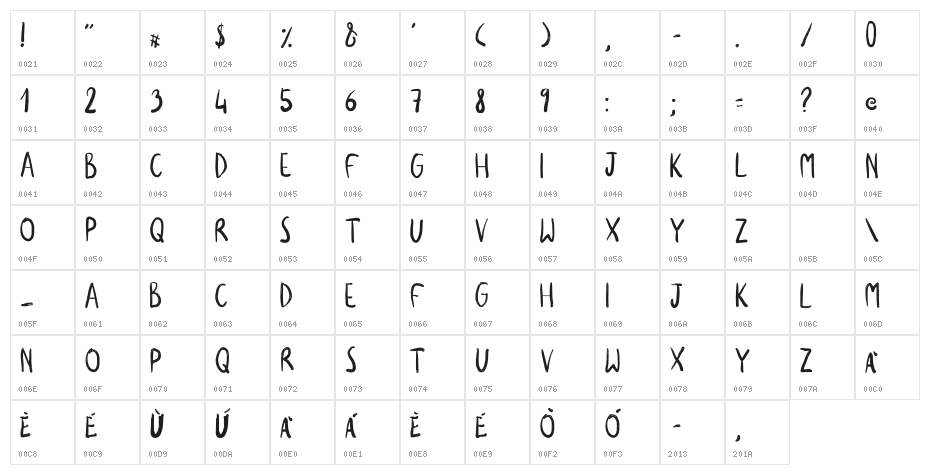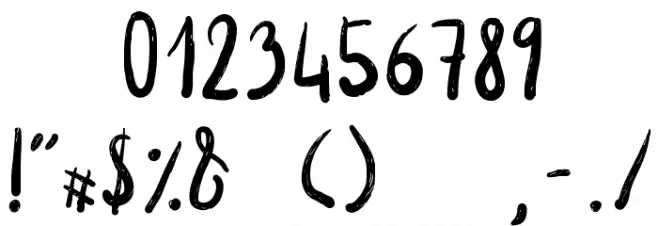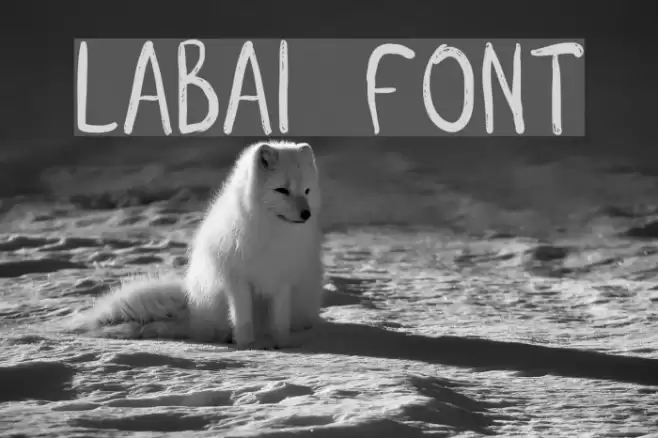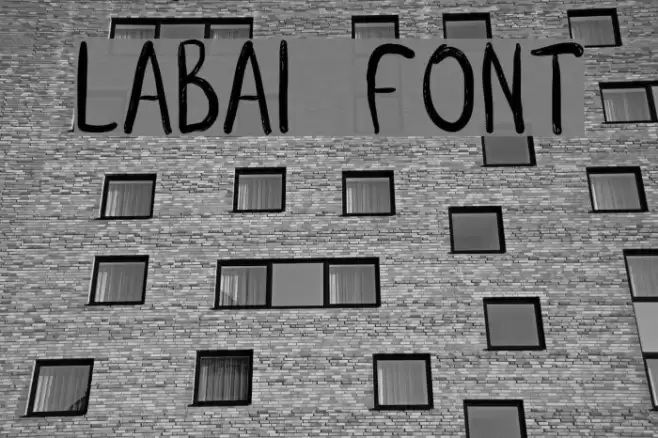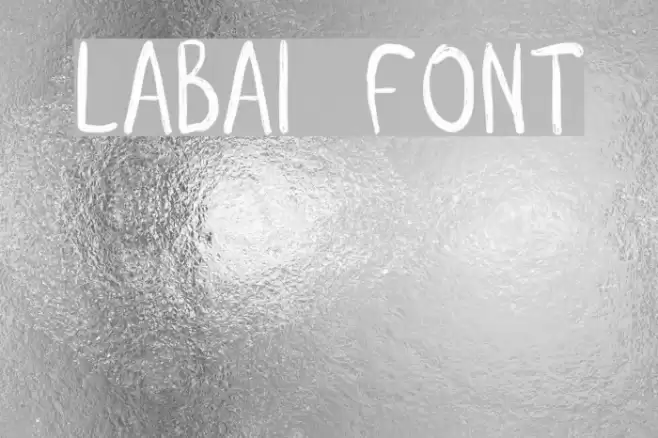
Labai Font
Labai Description
This font features a playful and informal handwritten style, characterized by its uneven strokes and slightly irregular letterforms. The uppercase and lowercase letters maintain a consistent height, giving it a cohesive look despite its casual appearance. The numbers and special characters follow the same style, adding to the font's overall charm. The strokes are moderately thick, providing good readability while retaining a whimsical touch. This font is suitable for projects that require a personal or creative flair, such as invitations, greeting cards, or artistic posters.
LABAI UPPERCASE
LABAI LOWERCASE
LABAI OTHER CHARS
| Use Case | Headlines, Creative projects |
| Proposed Projects | Ideal for invitations, greeting cards, artistic posters, and creative projects. |